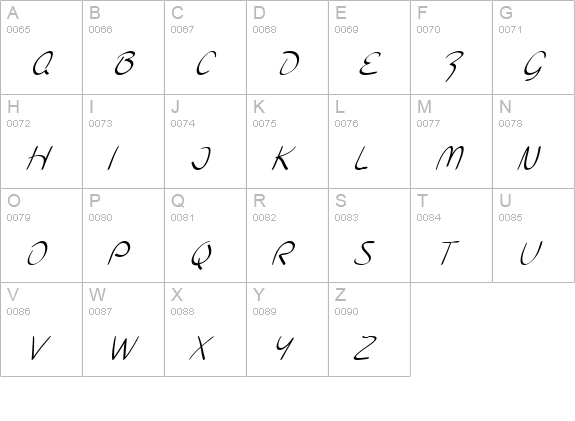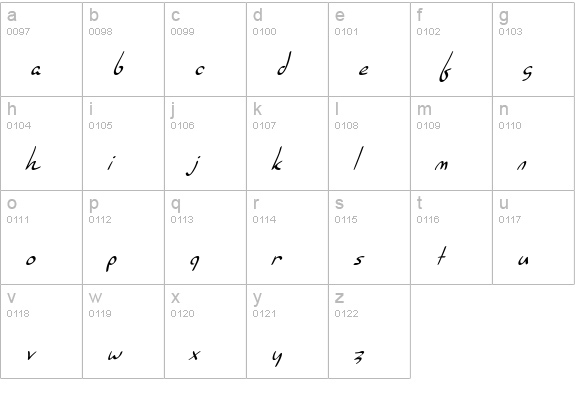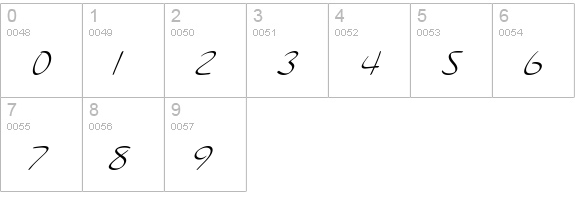
SF Burlington Script Italic Font Details
SF Burlington Script Italic is a distinctive, italic variant in the SF typeface family \xE2\x80\x94 well suited to design and typography projects.
SF Burlington Script Italic is a stunning and elegant font that exudes sophistication and charm. Its delicate and flowing curves create a sense of grace and beauty, making it perfect for adding a touch of class to any project. Whether you're designing wedding invitations, greeting cards, or elegant branding materials, this font will instantly elevate your work to new heights. With its slanted and cursive letterforms, SF Burlington Script Italic brings a sense of movement and fluidity to your designs. Each letter is meticulously crafted, with attention to detail that is truly remarkable. The thin strokes and subtle serifs give the font a refined and polished look, while the italic style adds a touch of uniqueness and personality. One of the best things about SF Burlington Script Italic is that it is free to download at FontsMarket.com. Yes, you read that right - this exquisite font can be yours for absolutely no cost. It's a fantastic opportunity to enhance your design projects without breaking the bank. Simply visit FontsMarket.com and start exploring the world of SF Burlington Script Italic. Whether you're a professional designer or a creative enthusiast, SF Burlington Script Italic is a must-have in your font collection. Its versatility and timeless beauty make it suitable for a wide range of applications. From elegant wedding stationery to luxurious branding materials, this font will help you create stunning and memorable designs. Don't miss out on the chance to add SF Burlington Script Italic to your font library. Download it for free at FontsMarket.com and discover the endless possibilities it offers. With its effortless elegance and exquisite details, this font is sure to become a go-to choice for all your design needs. Get ready to elevate your creations with SF Burlington Script Italic.